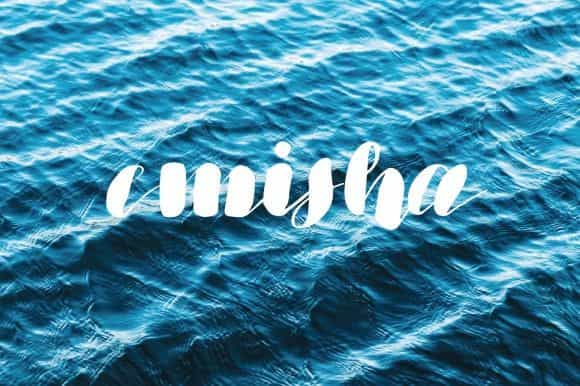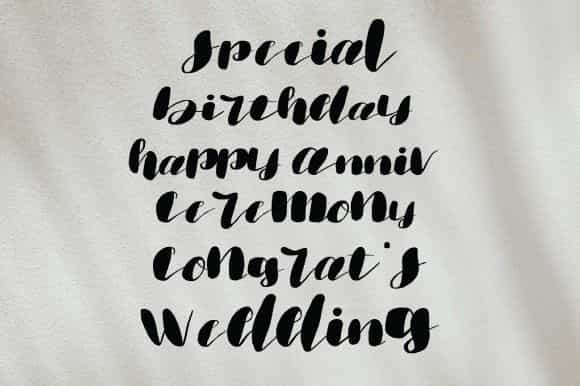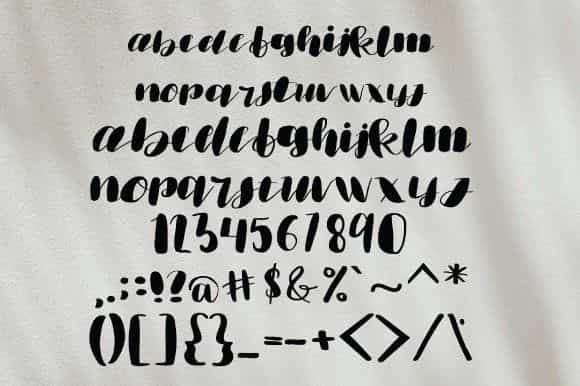
Introduce Emisha Font. Fonts is a kind of script font with the thick brushpen. Emisha is handcrafted in a contemporary style. This font is more appropriate to be used for quotes / contents of novels that emphasize the feminine aspect. Besides, they can also be applied for product logos, personal logos and wedding invitations.